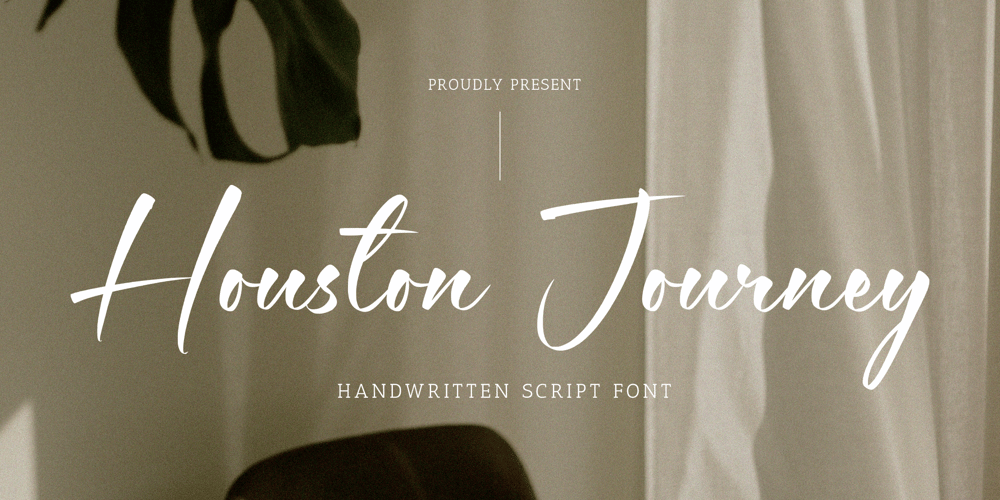
Houston Journey Font Family was designed by Wara Sigit Tri Pamungkas and published by Timurtype. Houston Journey contains 1 styles and family package options. Introducing by Timur typeProudly Present, Houston JourneyA Handwritten FontHouston Journey is perfect for product packaging, branding project, megazine, social media, wedding, or just used to express words above the background.Houston Journey also multilingual support.Enjoy the font.Thank you!